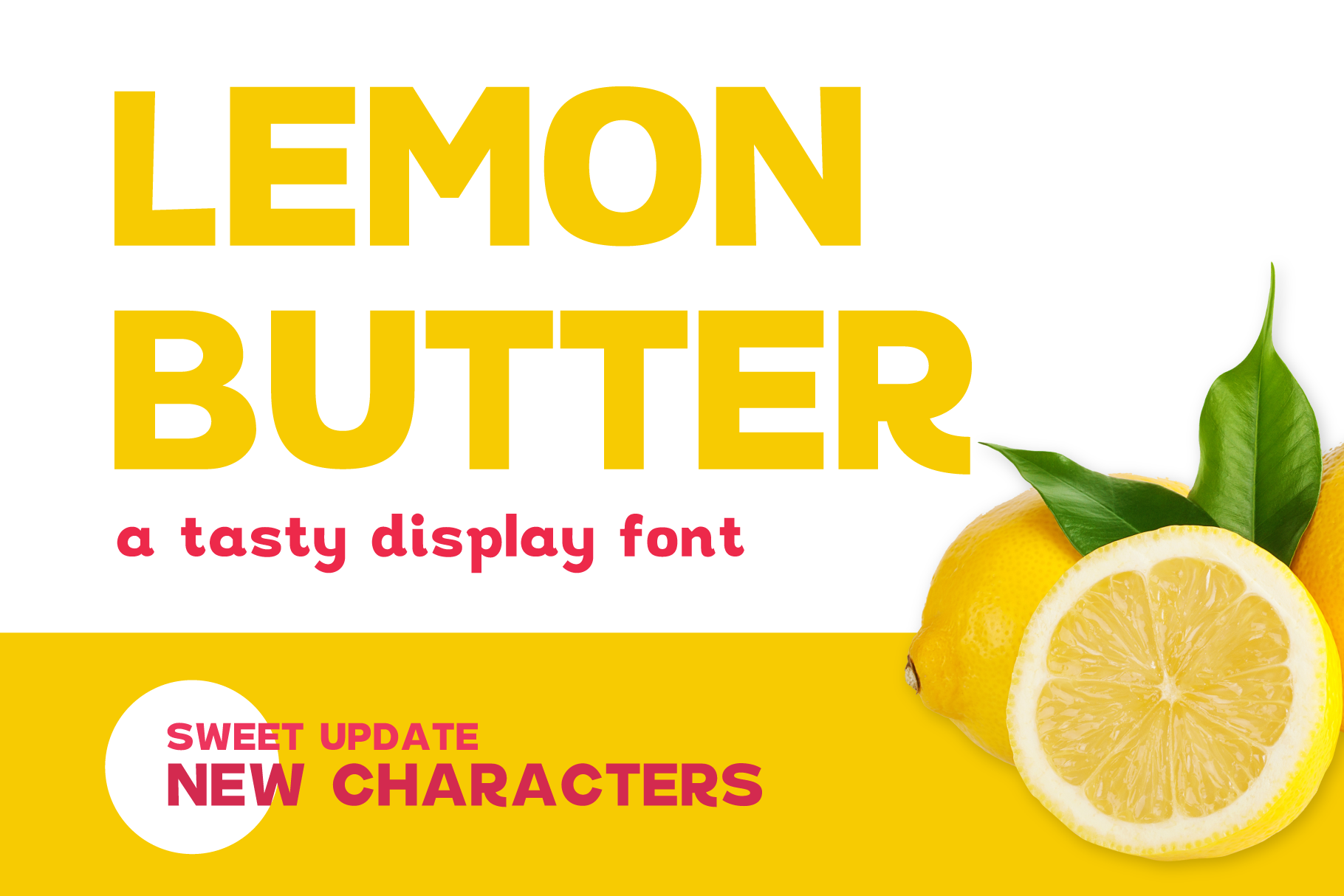
Lemon Butter Display Font
UPDATED New characters added! "#$%&'()*+/;=@[]{}~¢£¥©®÷‘’“”•€
Lemon Butter is an intentionally imperfect display font. Sweet and buttery in all the right places. Let the flavour of Lemon Butter excite your projects!